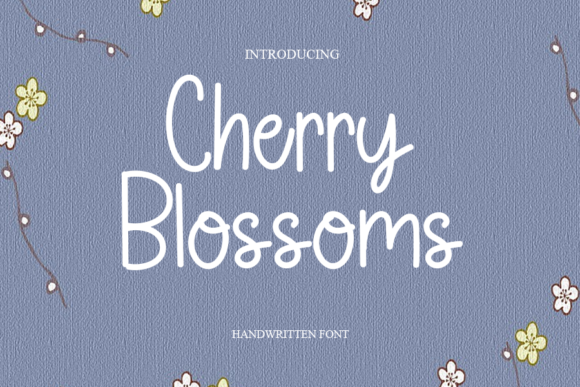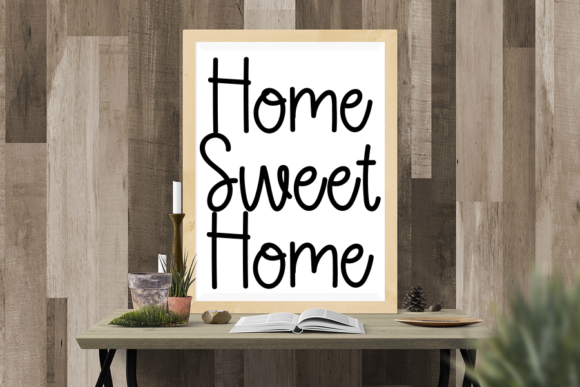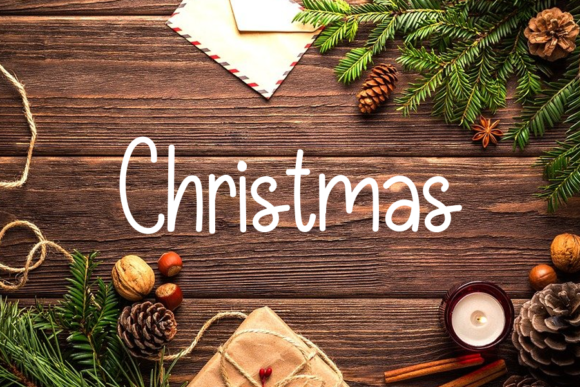
Cherry Blossoms Font
About Cherry Blossoms Font
Cherry Blossoms is a cute and delicate lettered handwritten font that you can use for all chalkboard quotes or teaching material! Its authentic look will add a personal and realistic feel to your designs.